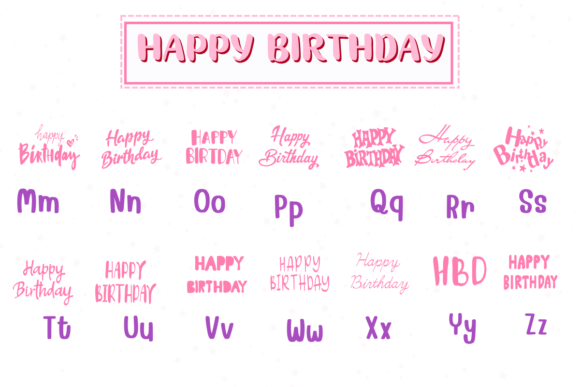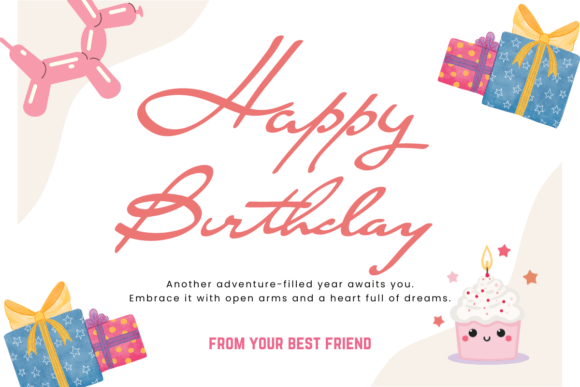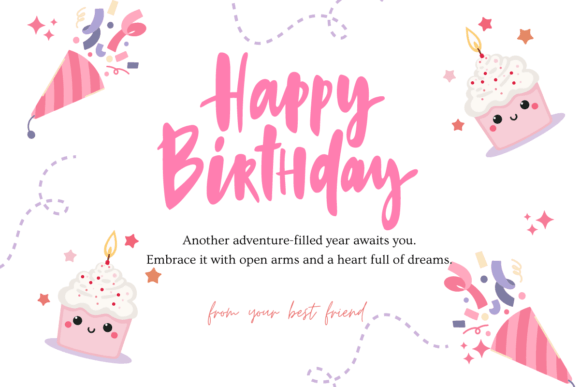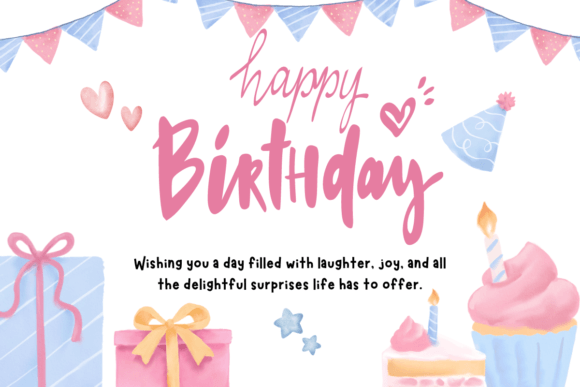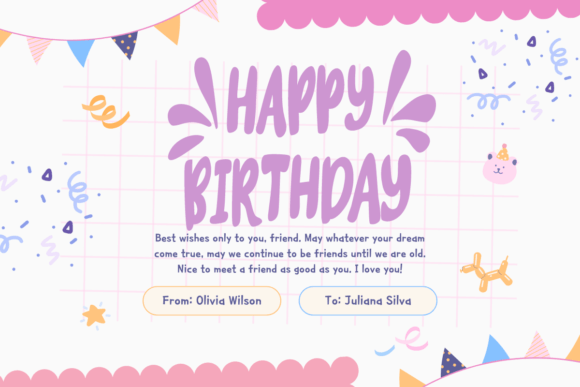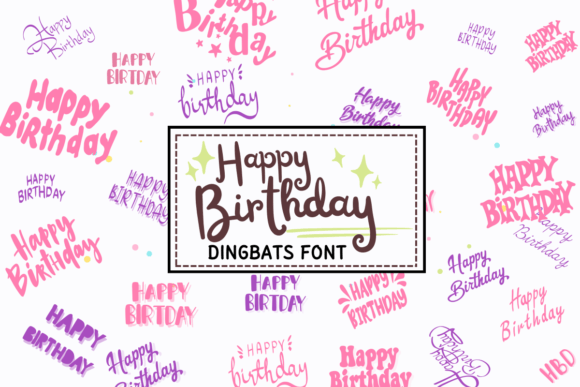
Happy Birthday Font: Add a Festive Touch to Your Creative Projects
Are you looking for a fun and festive font to make your creative projects stand out? Look no further than the Happy Birthday font! This delightful dingbats font is perfect for adding a celebratory touch to your wedding invitations, DIY crafts, decorations, logos, and many other creative ideas. In this article, we’ll explore the features and benefits of the Happy Birthday font and how you can use it to take your designs to the next level.
What is Happy Birthday Font?
Happy Birthday is a unique dingbats font that features festive and fun designs, perfect for any celebratory occasion. The font includes a range of characters, from birthday-themed icons to decorative borders and shapes. With its playful and whimsical style, Happy Birthday font is sure to add a touch of excitement and joy to any project.
Features of Happy Birthday Font
The Happy Birthday font comes with a range of features that make it perfect for designers and crafters. Some of its key features include:
- Festive designs: The font features a range of festive designs, including birthday-themed icons, balloons, cakes, and more.
Uses of Happy Birthday Font
The Happy Birthday font is incredibly versatile and can be used for a wide range of creative projects, including:
- Wedding invitations: Add a festive touch to your wedding invitations with the Happy Birthday font.
- DIY crafts: Use the font to create custom DIY crafts, such as birthday cards, gift tags, and decorations.
- Decorations: Create custom decorations, such as banners, garlands, and signs, using the Happy Birthday font.
- Logos: Use the font to create custom logos for your business or brand.
- Social media graphics: Add a festive touch to your social media graphics, such as Facebook posts and Instagram stories.
Tips for Using Happy Birthday Font
Here are some tips for using the Happy Birthday font in your creative projects:
- Experiment with different colors: Try out different colors and color combinations to add depth and interest to your designs.
- Mix and match characters: Mix and match different characters to create unique and interesting designs.
- Use it with other fonts: Combine the Happy Birthday font with other fonts to create a unique and eye-catching design.
- Be creative: Don’t be afraid to think outside the box and come up with creative and unique design ideas.
The Happy Birthday font is a fun and festive dingbats font that’s perfect for adding a celebratory touch to your creative projects. With its range of festive designs, ease of use, and scalability, it’s perfect for designers and crafters of all levels. Whether you’re creating wedding invitations, DIY crafts, decorations, logos, or social media graphics, the Happy Birthday font is sure to add a touch of excitement and joy to your designs. So why not give it a try and see what creative projects you can come up with?